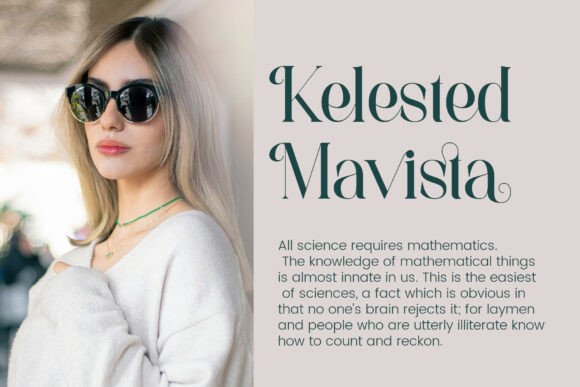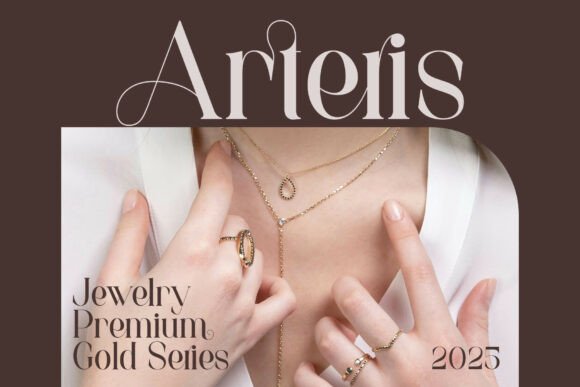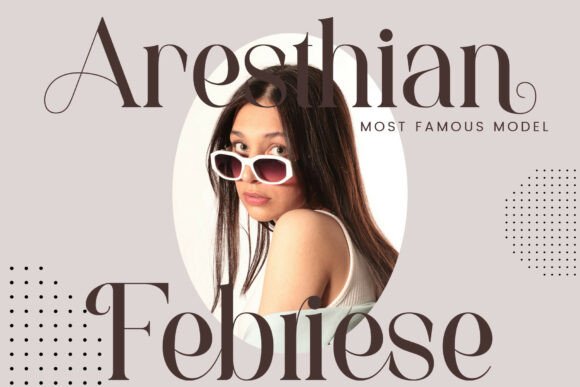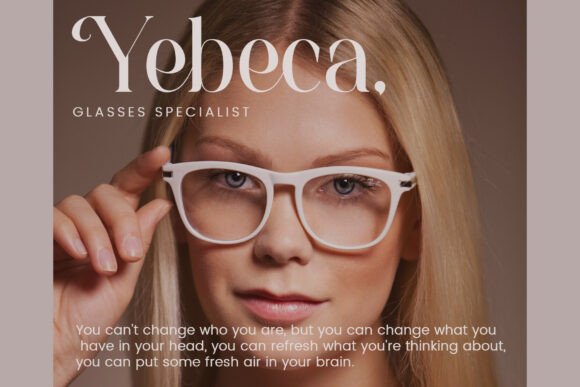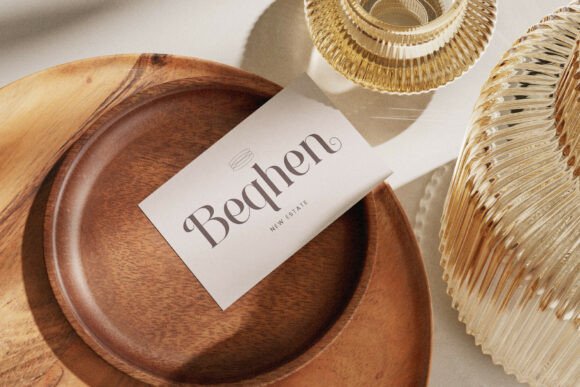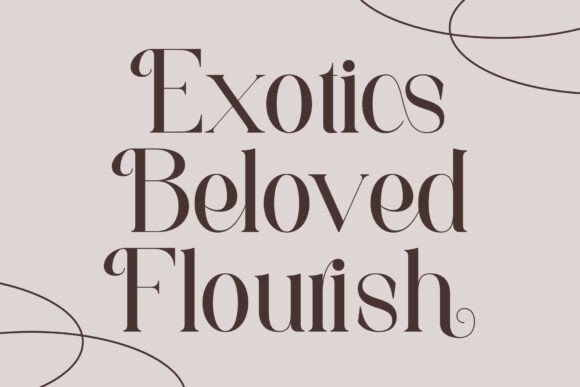
Asteria Font: The Ultimate Stylish Ligature Typeface for Modern Designers
In the world of typography, a font can make or break a design. For designers and crafters, finding the perfect typeface that combines style, elegance, and versatility can be a daunting task. However, if you’re looking for a font that checks all these boxes and more, look no further than the Asteria Font. Inspired by the famous minimalist logo, Asteria is a stylish ligature typeface that has taken the design world by storm.
The Inspiration Behind Asteria Font
Asteria Font draws its inspiration from the minimalist logo design movement, which emphasizes simplicity, clean lines, and a limited color palette. The font’s creator aimed to capture the essence of this design philosophy and translate it into a typeface that exudes elegance and sophistication. The result is a font that is both modern and timeless, perfect for a wide range of design applications.
Key Features of Asteria Font
Asteria Font boasts several key features that make it an attractive choice for designers and crafters. Some of its notable features include:
- Stylish Ligatures: Asteria Font features beautiful ligatures that add a touch of elegance to any design. The ligatures are carefully crafted to create a seamless flow between letters, making the text more readable and visually appealing.
- Clean and Minimalist Design: The font’s clean and minimalist design makes it perfect for modern designs that require a simple yet sophisticated look.
- High Versatility: Asteria Font is highly versatile and can be used for a wide range of design applications, including templates, brochures, videos, advertising branding, logos, and more.
- Easy to Read: The font is designed to be easy to read, even at small sizes, making it perfect for body text and captions.
Use Cases for Asteria Font
Asteria Font is an incredibly versatile typeface that can be used for a wide range of design applications. Here are some use cases where Asteria Font shines:
- Branding and Logo Design: Asteria Font is perfect for creating elegant and sophisticated logos that make a lasting impression.
- Advertising and Marketing Materials: The font’s clean and minimalist design makes it ideal for creating ads, brochures, and other marketing materials that require a simple yet effective look.
- Video and Film Titles: Asteria Font’s stylish ligatures and clean design make it perfect for creating beautiful title sequences for videos and films.
- Web Design and Development: The font’s readability and versatility make it an excellent choice for web design and development projects.
Why Choose Asteria Font?
With so many fonts available in the market, why choose Asteria Font? Here are some reasons why Asteria Font stands out from the rest:
- Unique and Elegant Design: Asteria Font’s unique and elegant design sets it apart from other fonts in the market.
- High-Quality Typography: The font is crafted with attention to detail, ensuring high-quality typography that elevates any design.
In conclusion, Asteria Font is a stylish ligature typeface that is perfect for modern designers and crafters. Its clean and minimalist design, stylish ligatures, and high versatility make it an excellent choice for a wide range of design applications. Whether you’re creating a logo, brochure, video, or website, Asteria Font is sure to elevate your design and make it stand out from the crowd.